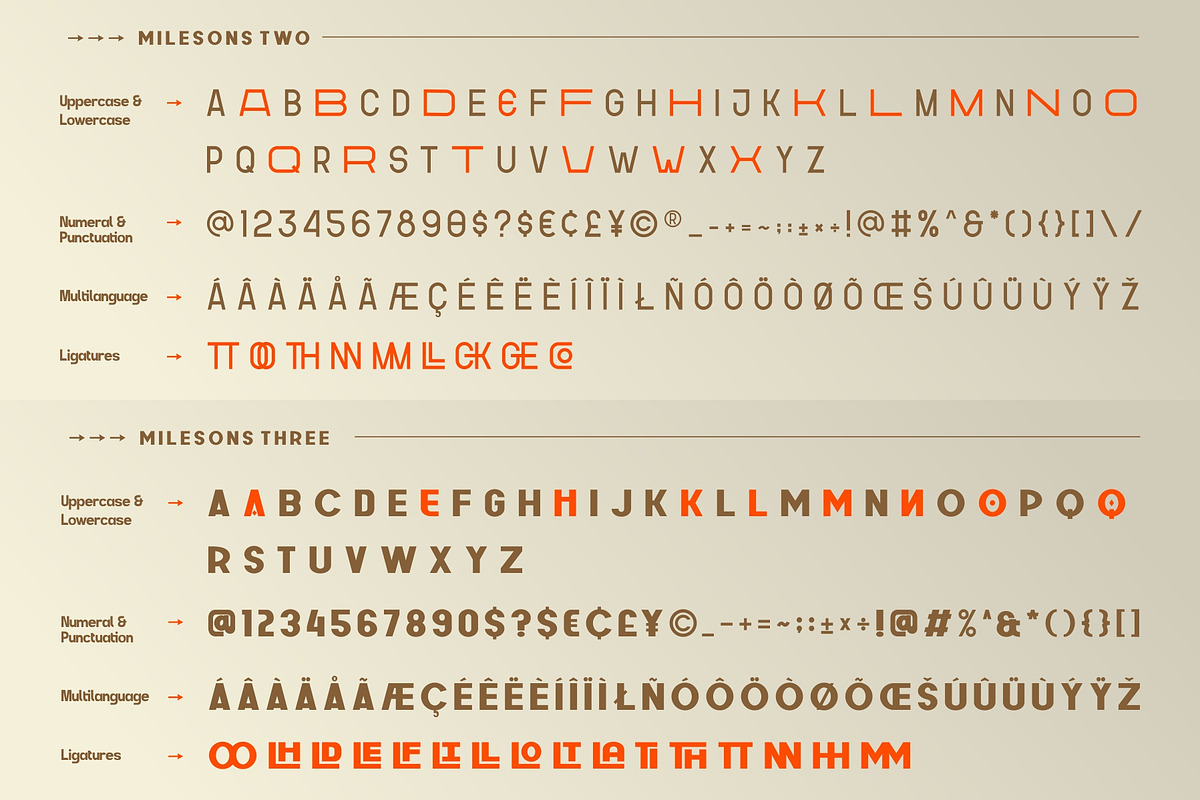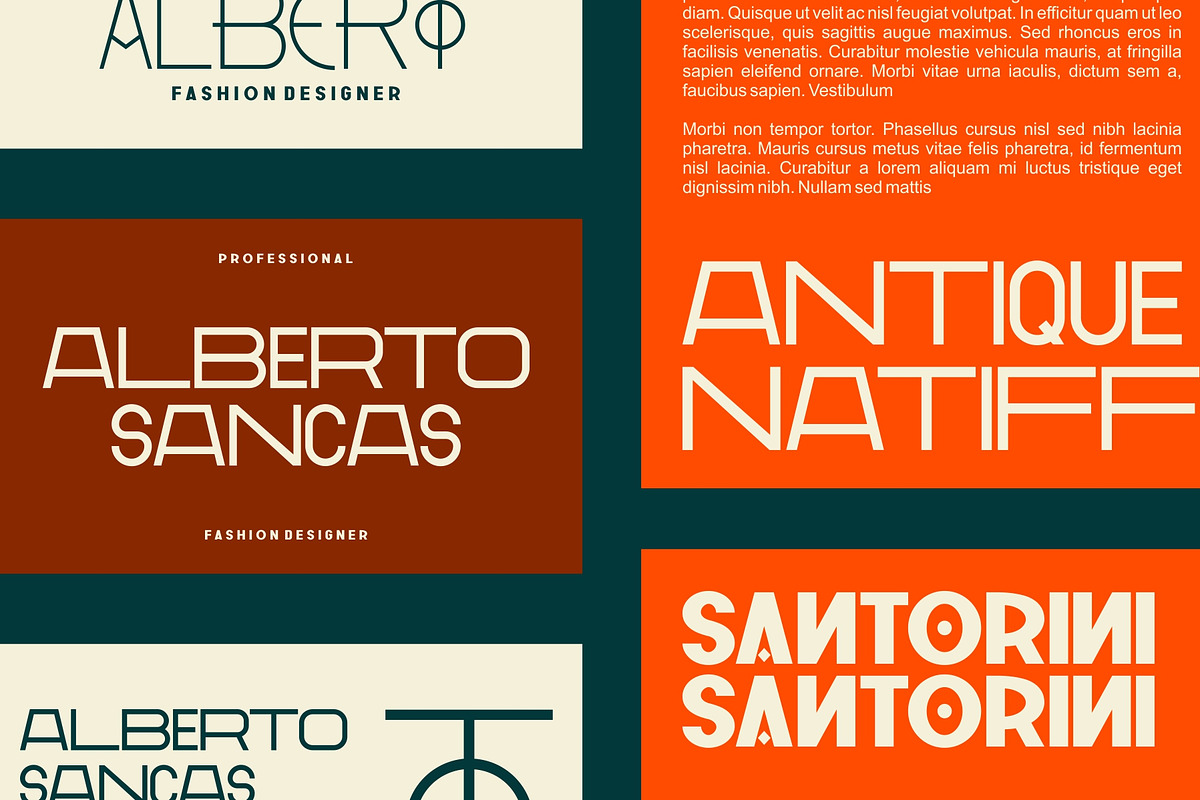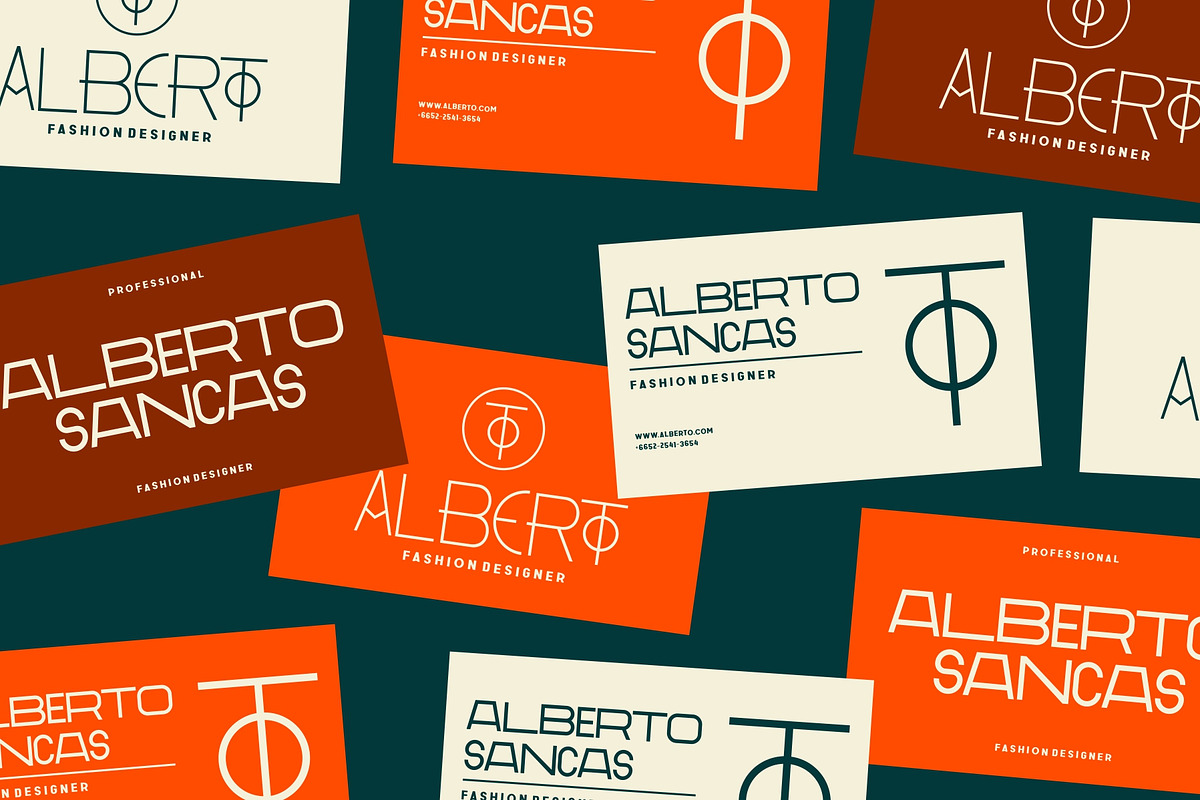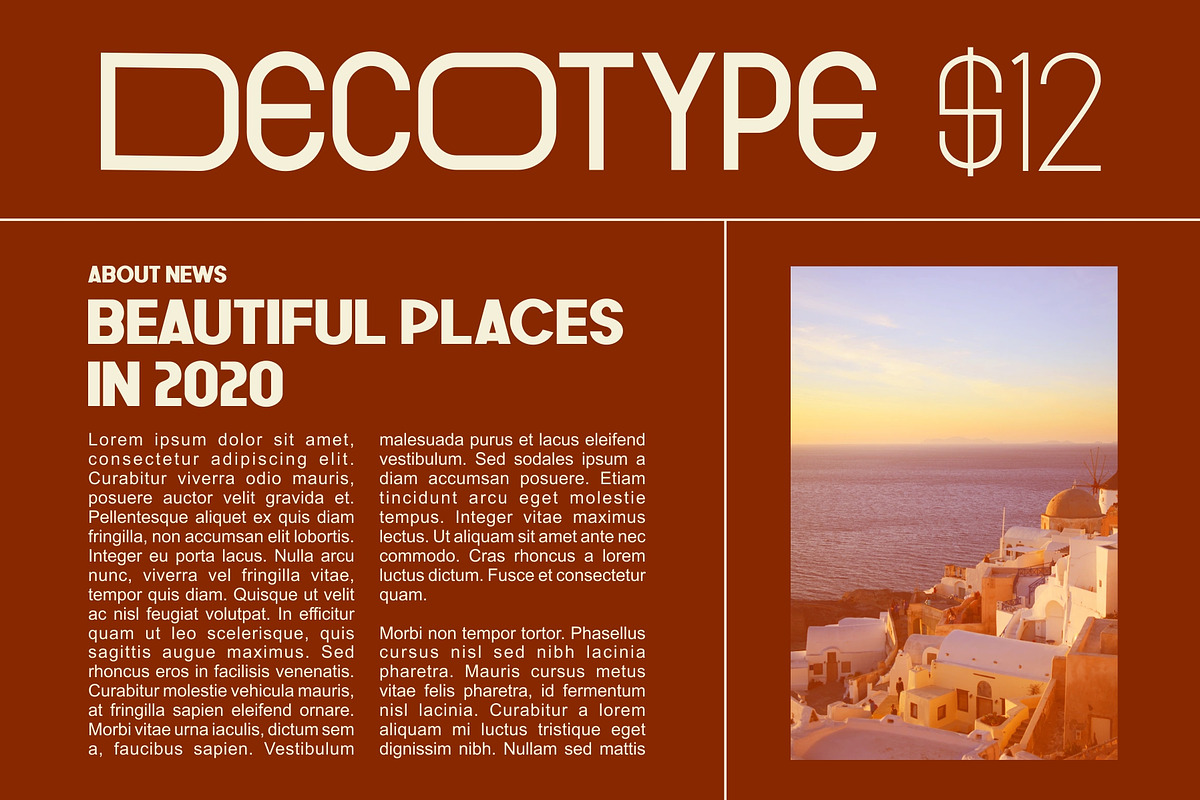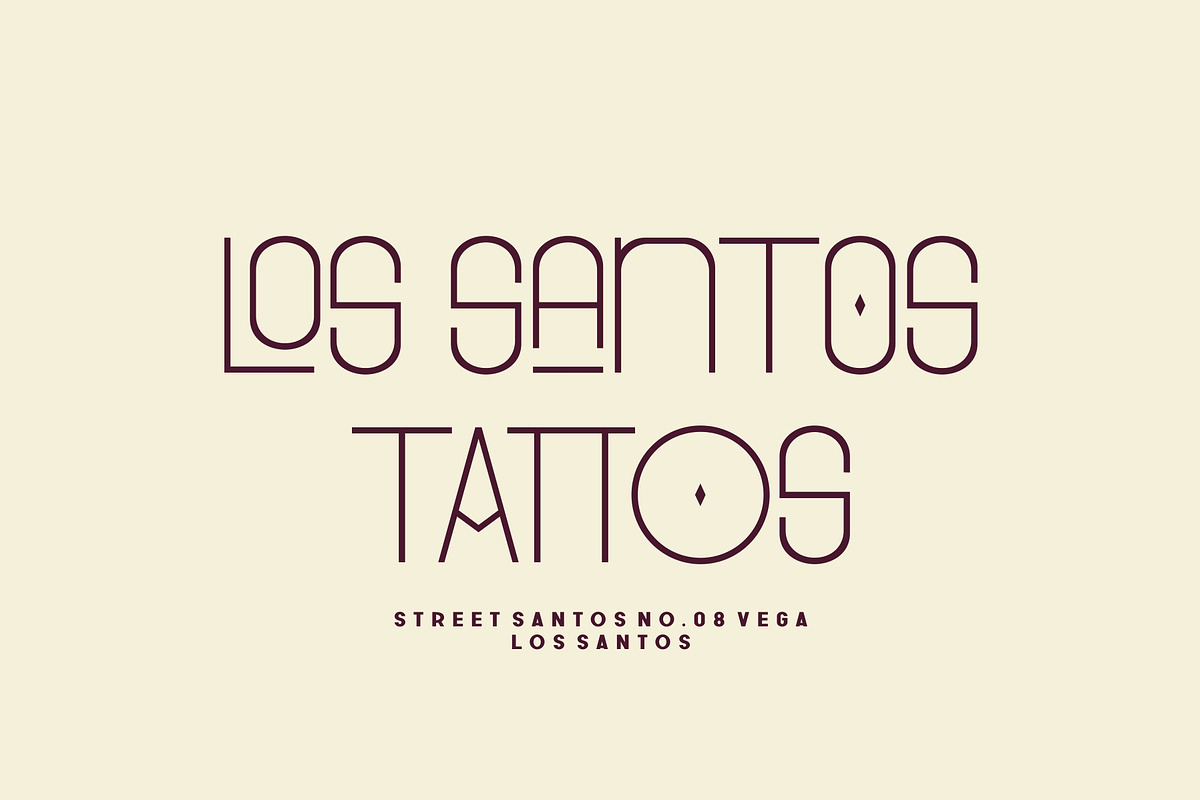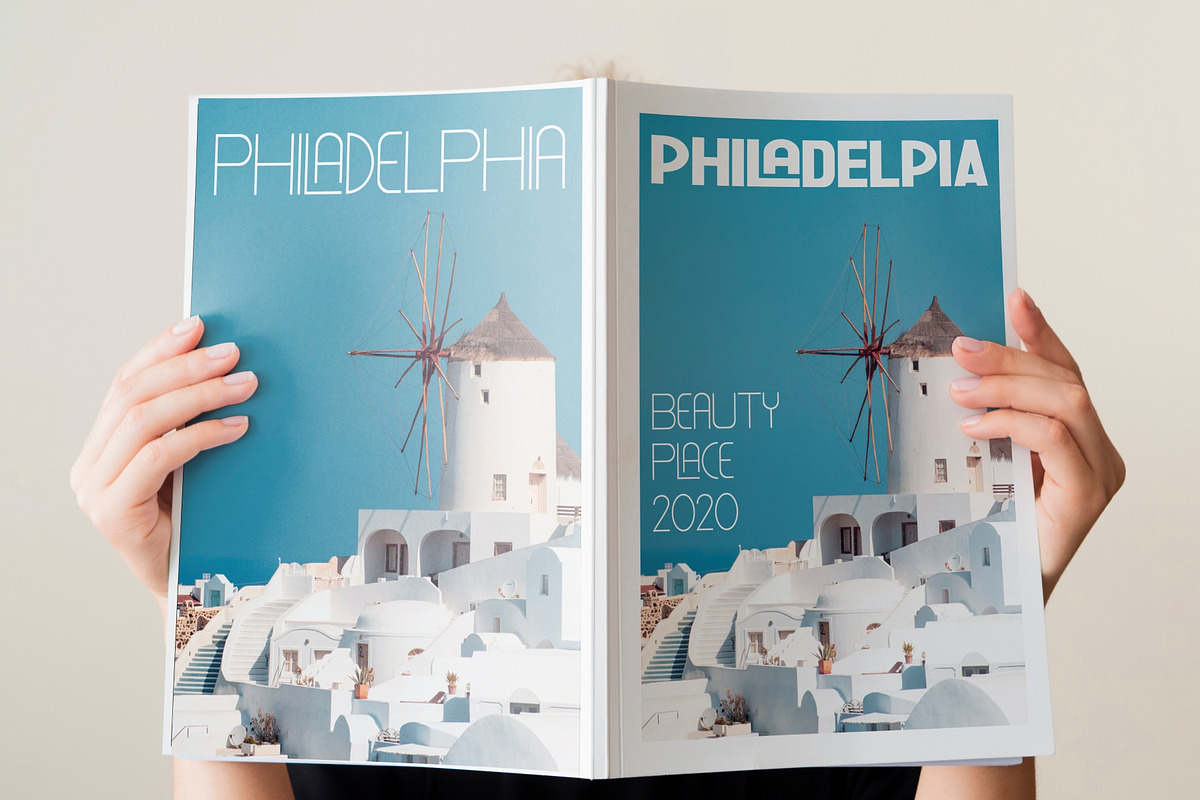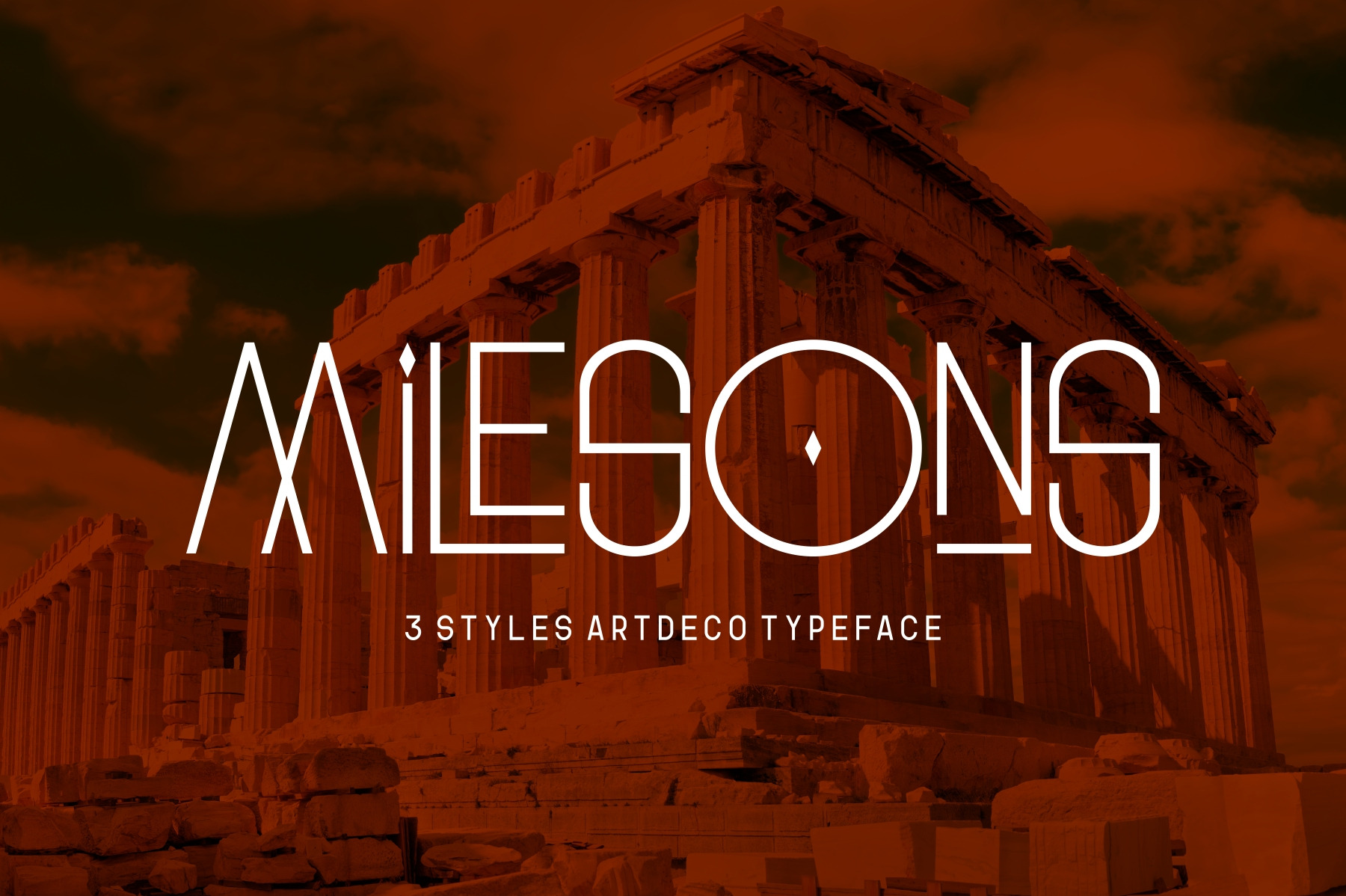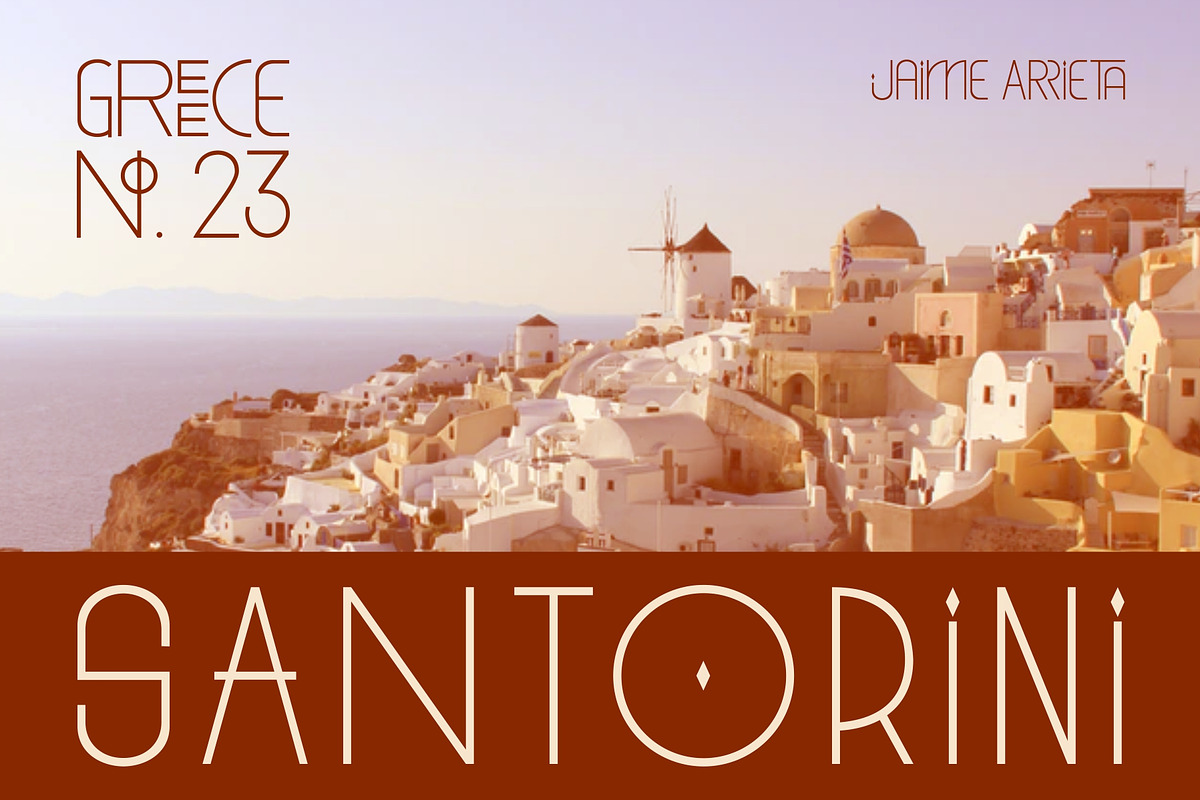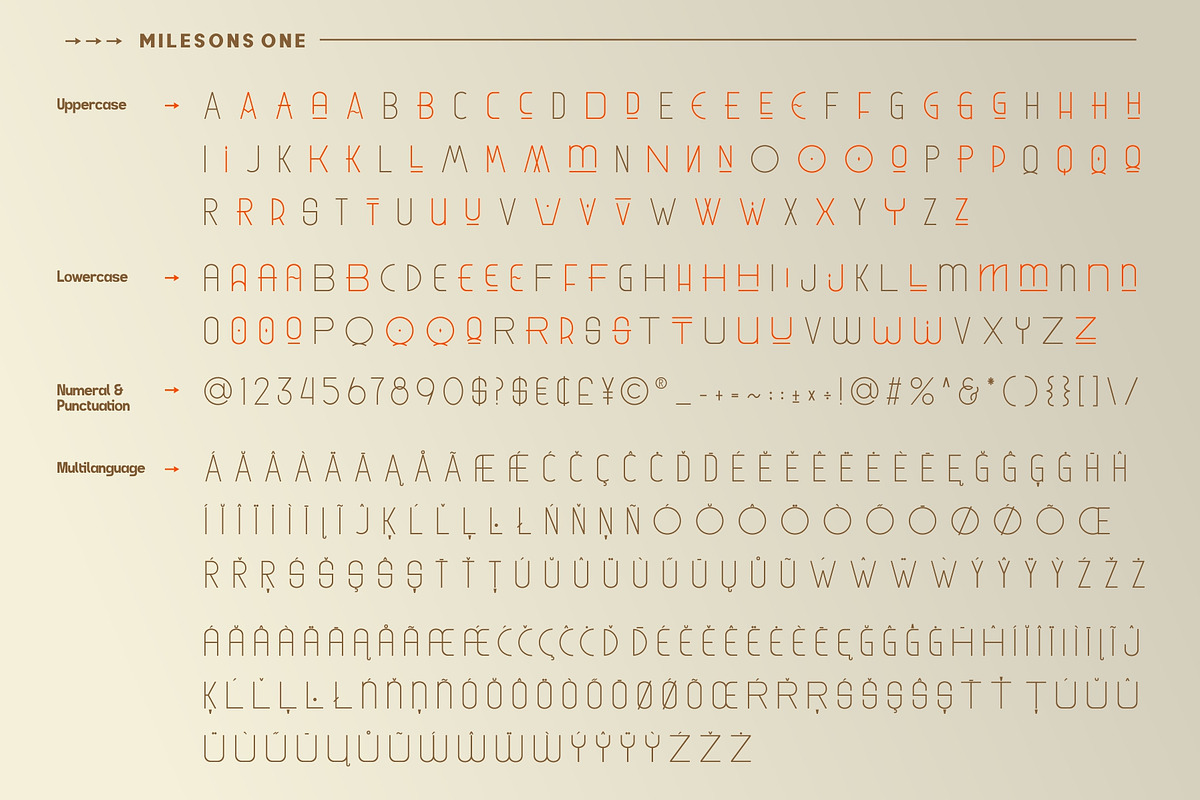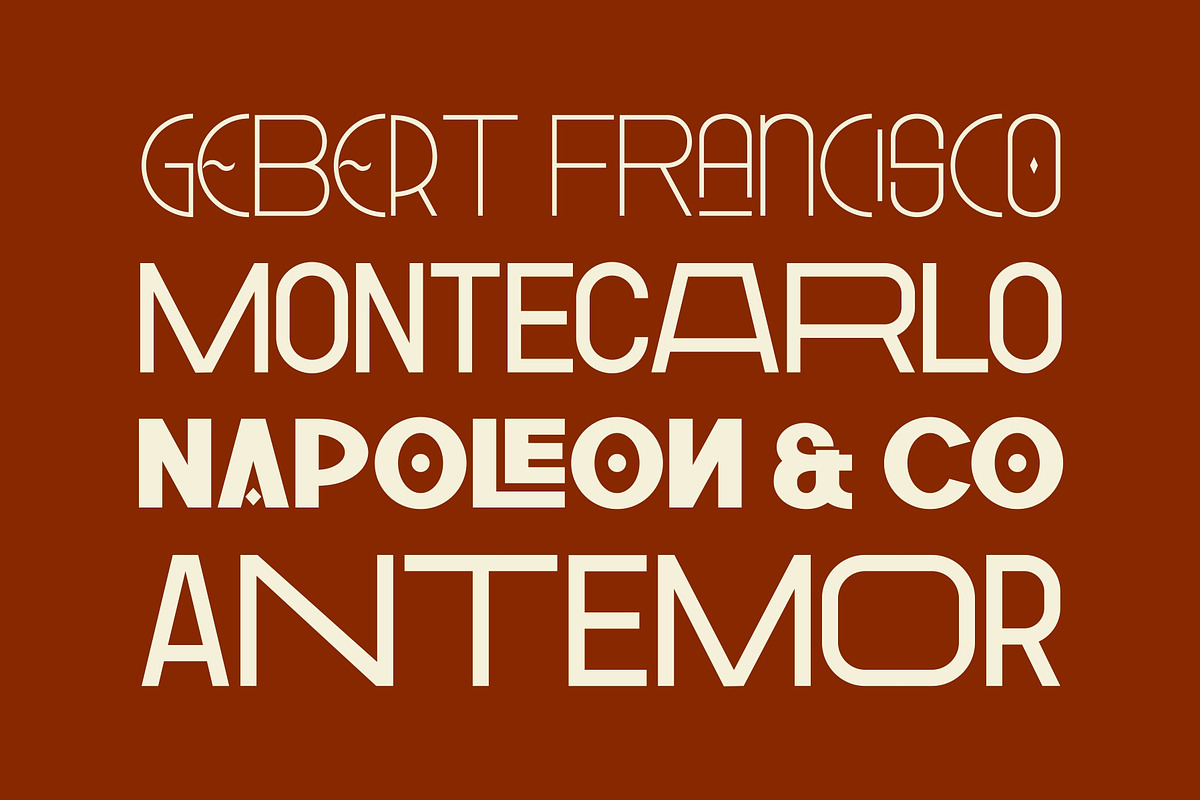
GR Milesons | Artdeco Typeface
Milesons is a very interesting font, which has been inspired by Art Deco art. It is formed from very careful lines with stylistic set and ligature features. Milesons has 300+ glyphs consisting of three styles: Milesons One, Milesons Two and Milesons Three.
Milesons Features :
- Stylistic Set & Ligatures
- 300+ Characters
- Unique Ligatures
- Multi-Language Support with accent
- Numeral and Punctuations